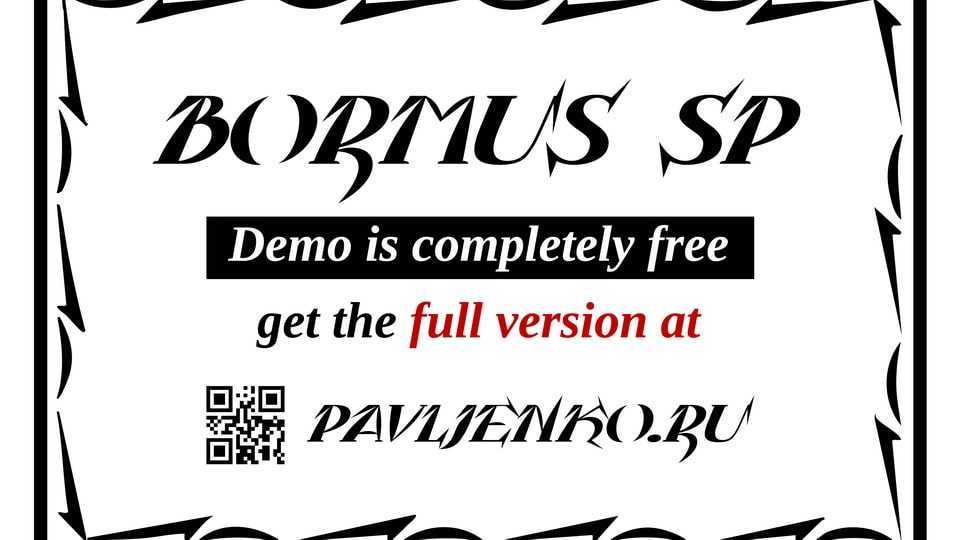
Download Bormus SP font, a display typeface based on the 1927 student project by M. V. Borisova-Musatova. Its forms combine a confident slant, contrasting strokes, and sharp, pointed terminals that create a striking, tense silhouette.
Designer: Sasha Pavljenko